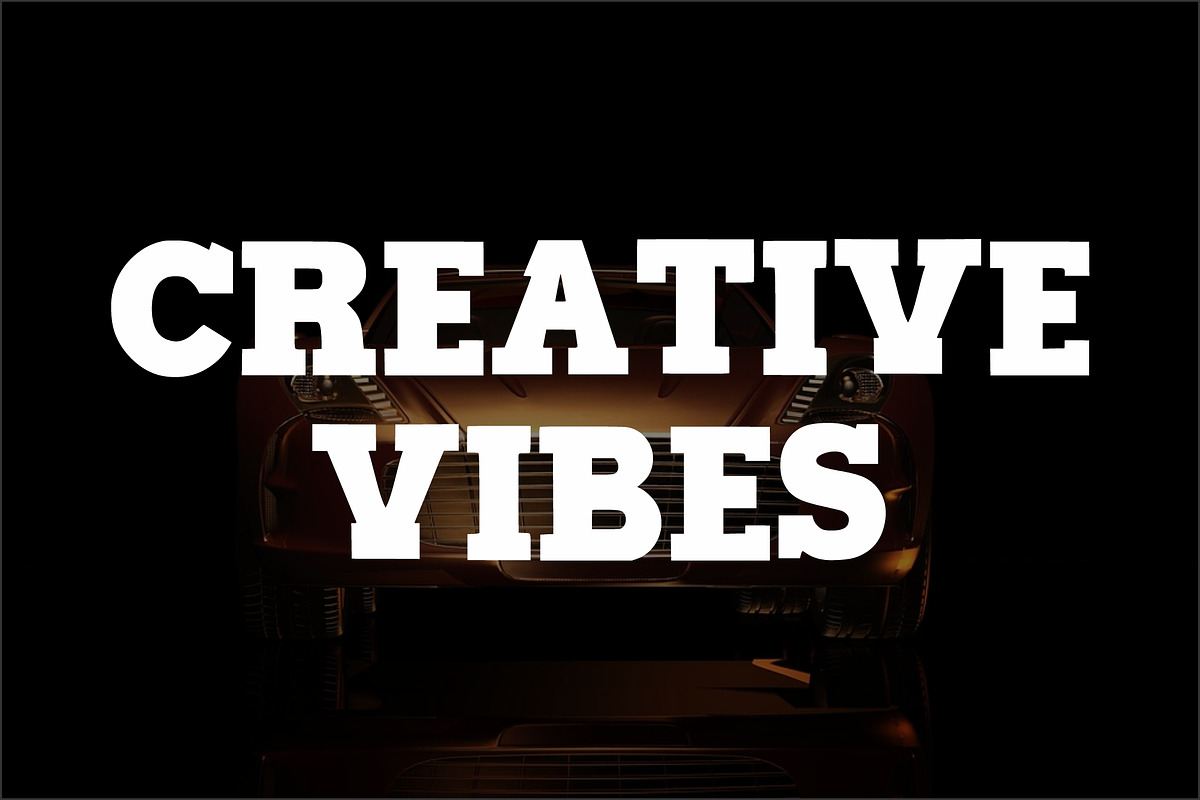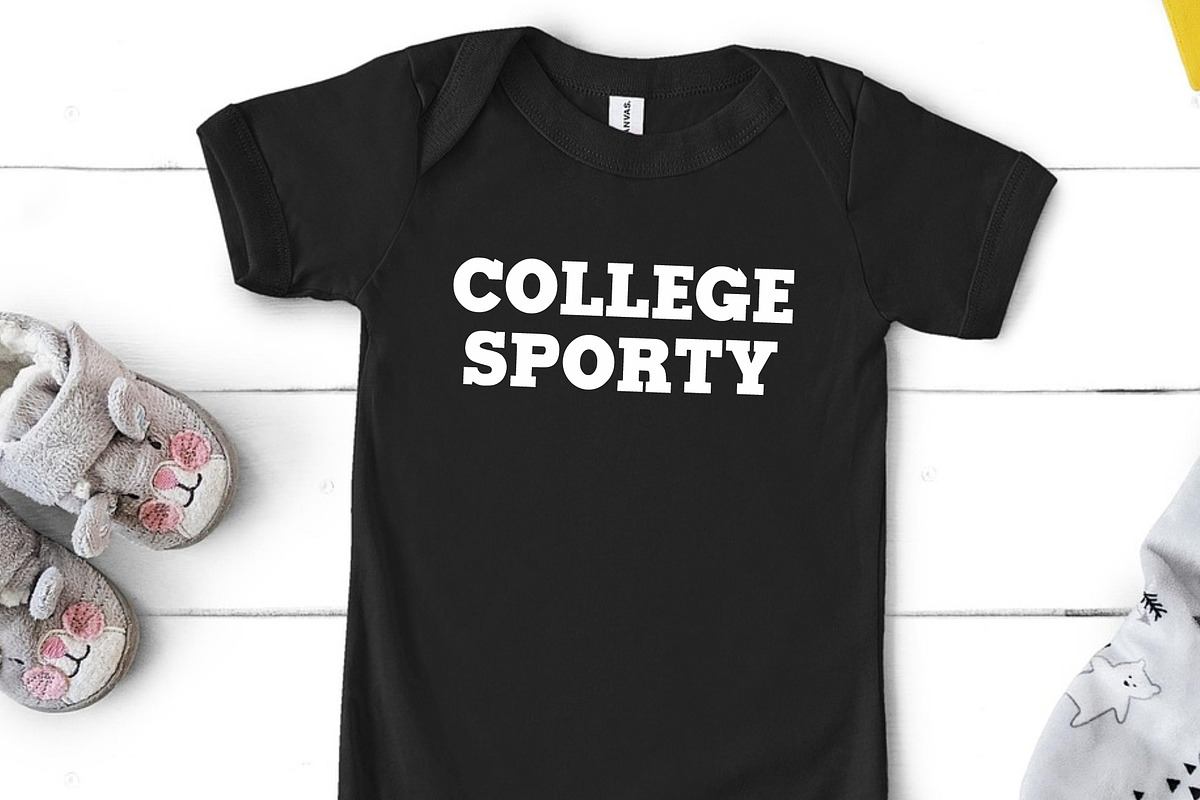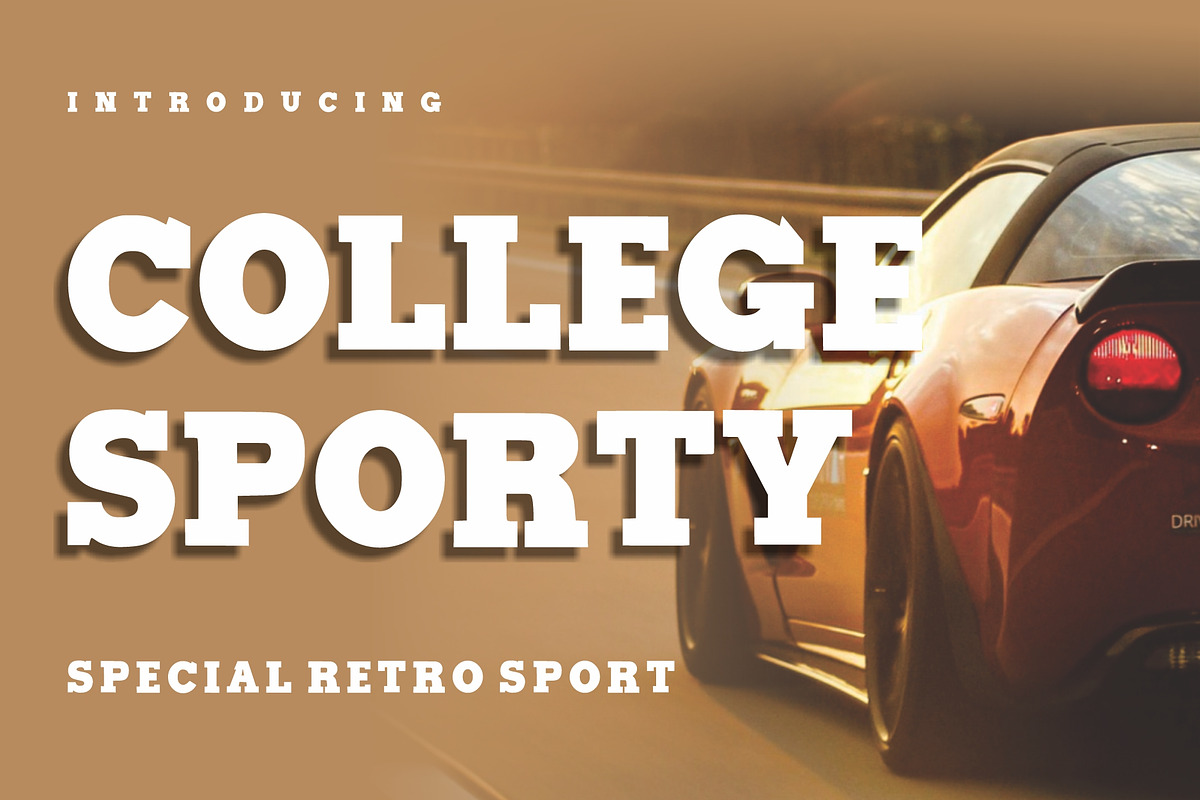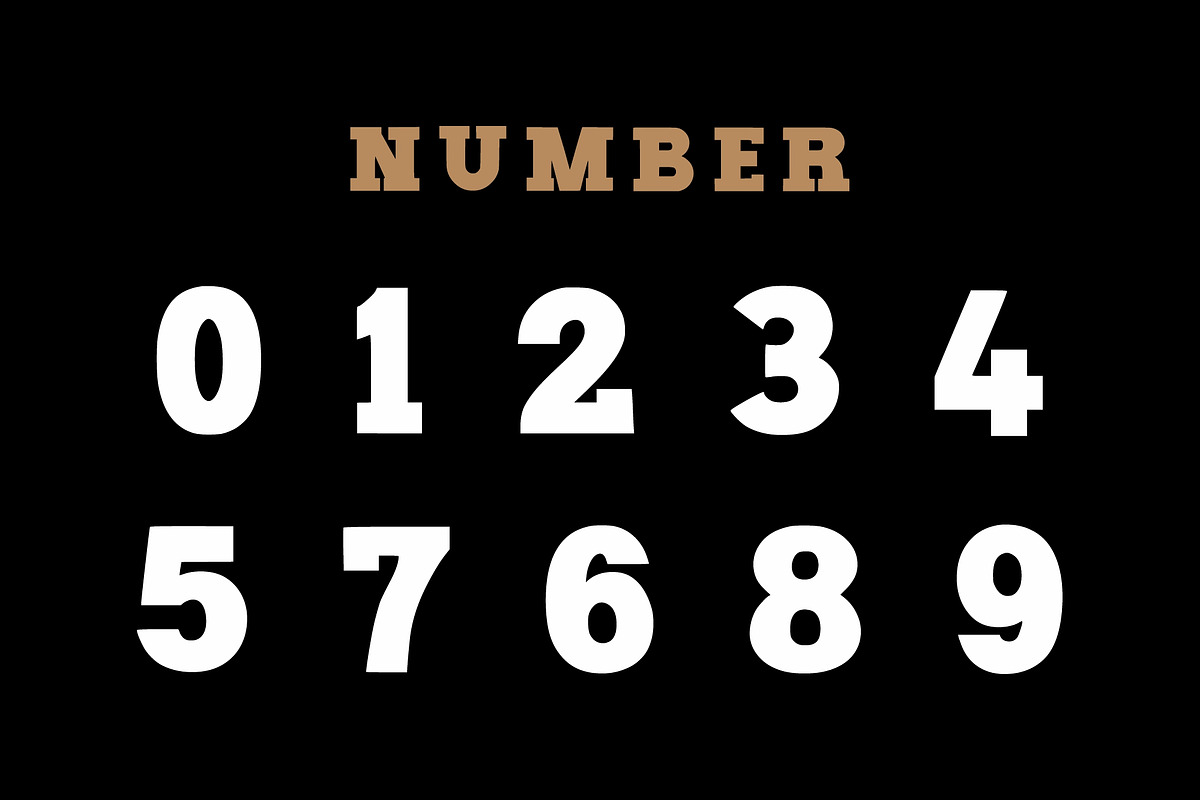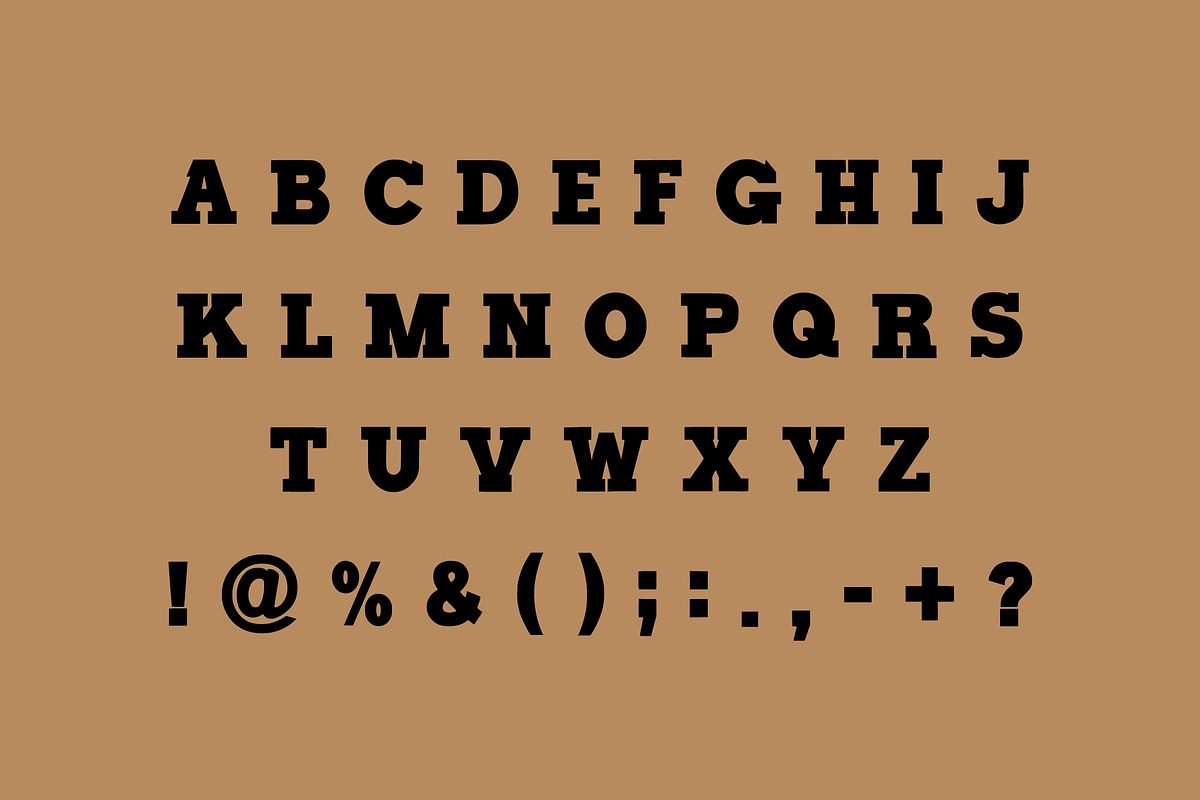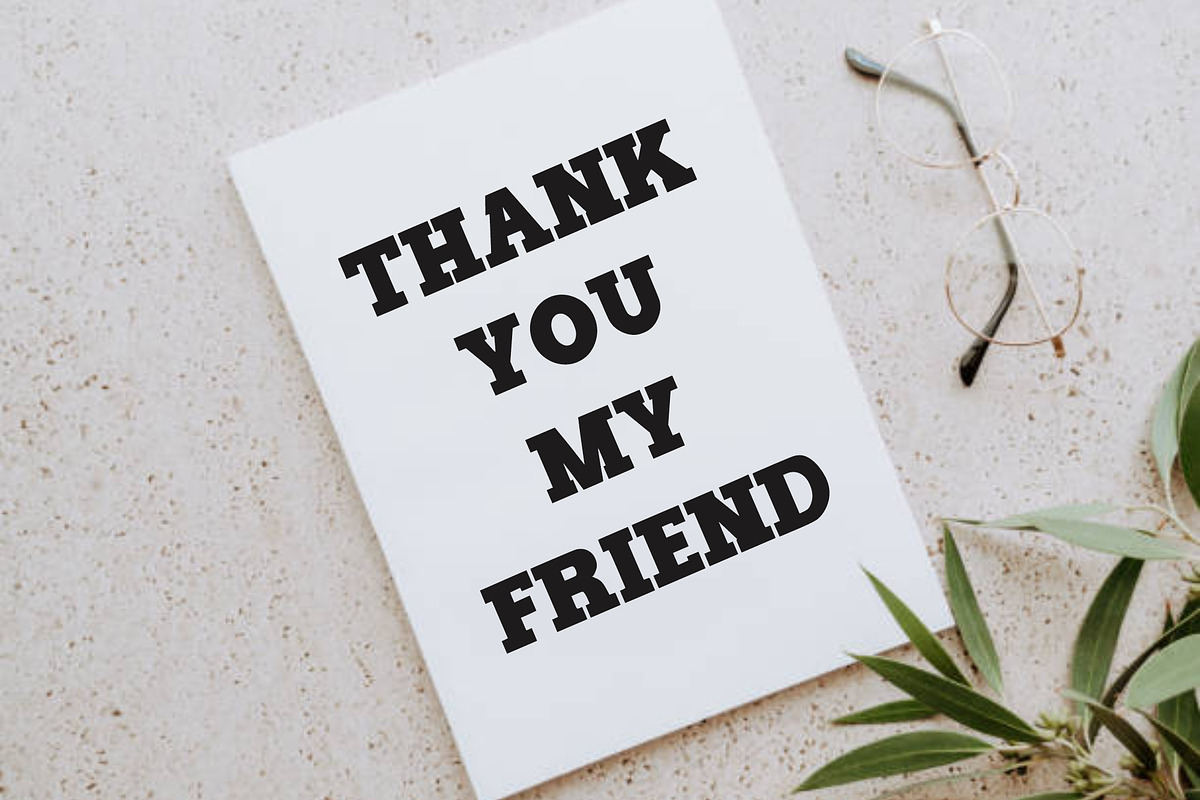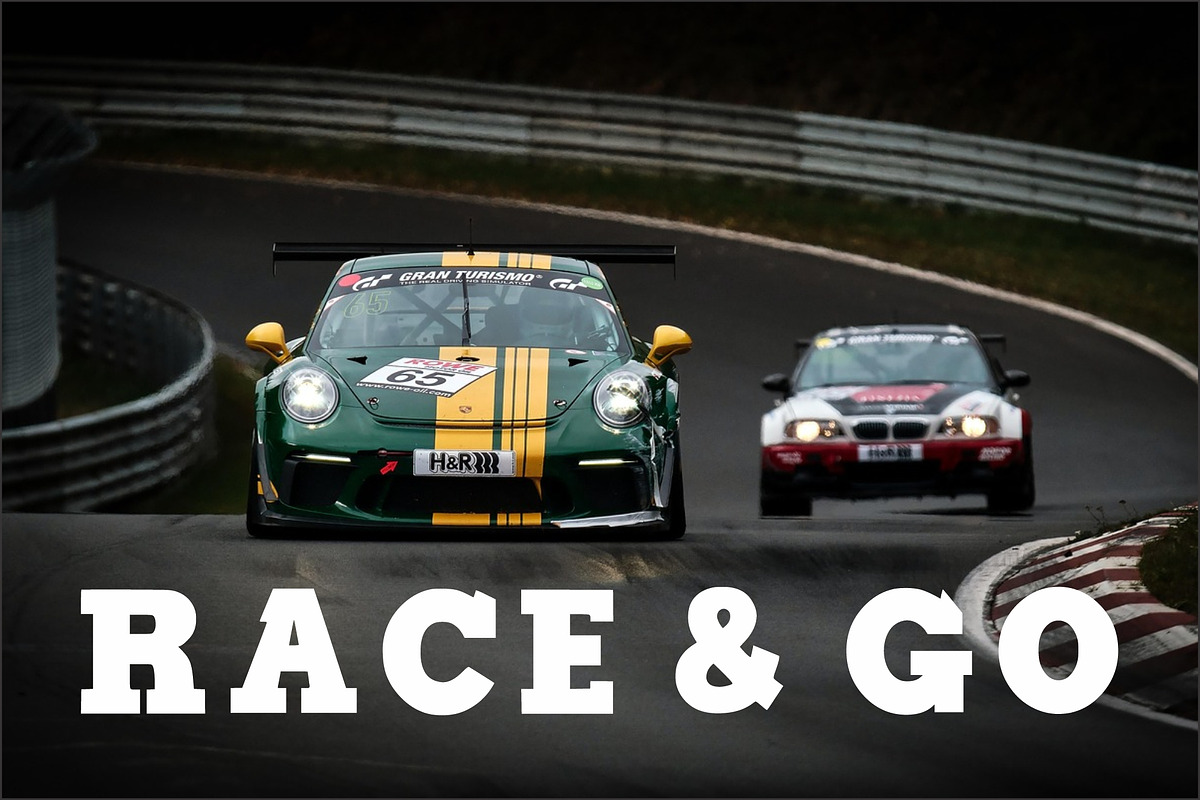
College Sporty
College Sporty – A Bold Retro Athletic Font
Introducing College Sporty, a bold and confident display font inspired by classic varsity lettering and vintage sports aesthetics.
With thick, solid lines and sharp serifs, College Sporty captures the competitive energy and timeless style of old-school college designs. It’s the perfect blend of retro power and modern precision, designed to make your message stand tall and proud.